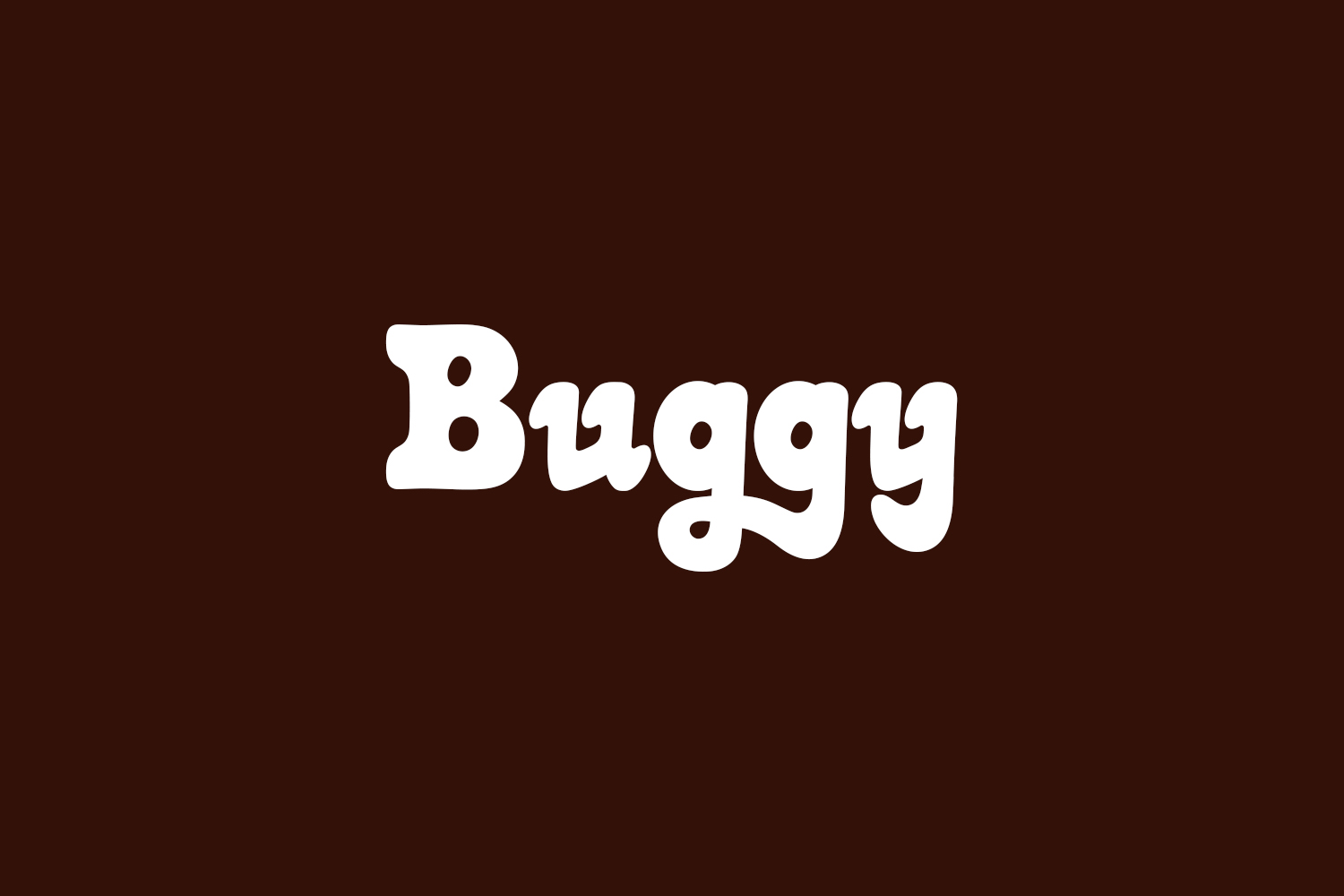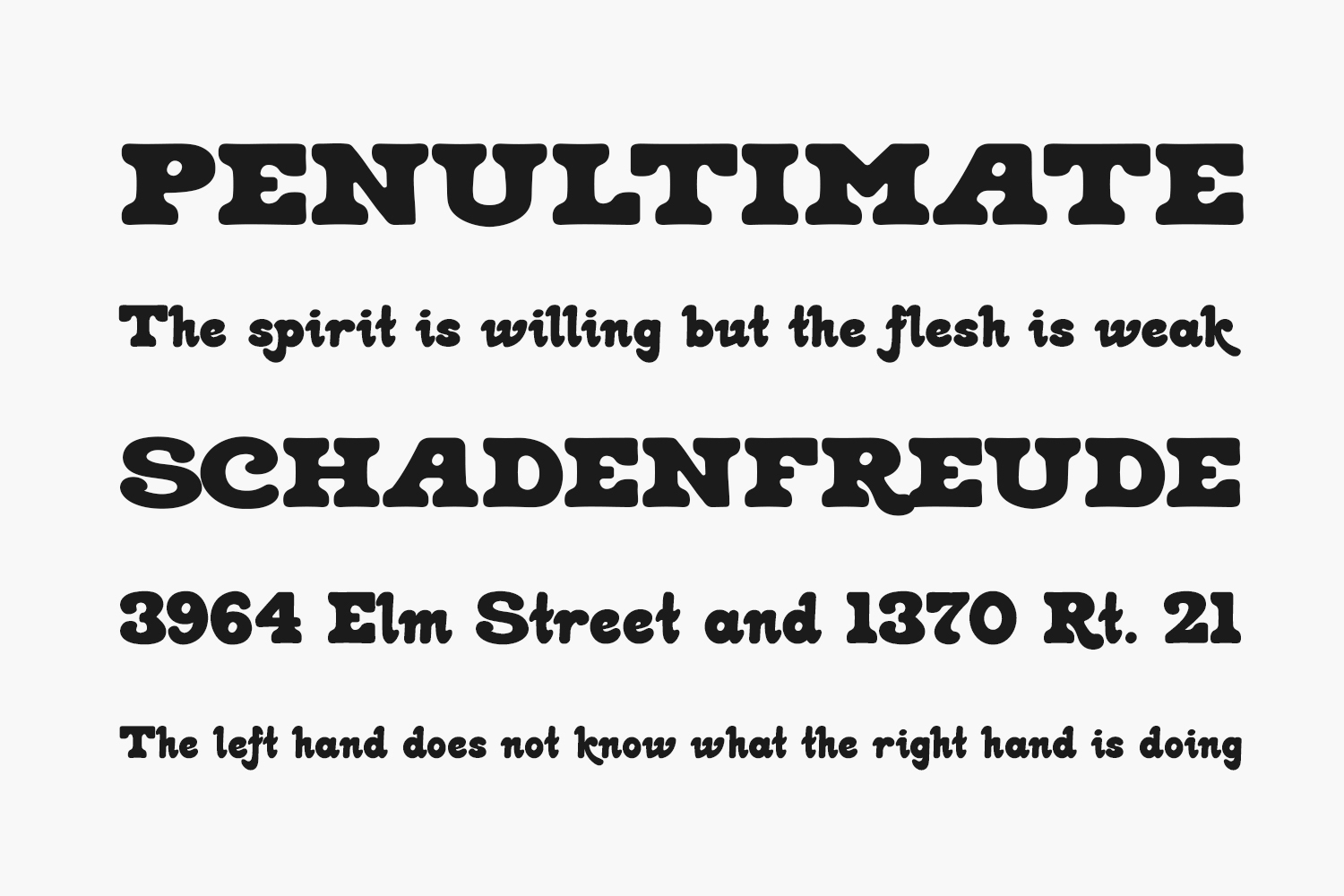
Buggy Free Font is a bold and retro styled display font, featuring the perfect amount of trendiness. Whether you’re using it for crafting, digital designing, presentations, or greeting card making, it’s perfect. Buggy Free Font was designed by Don Marciano and is free for personal use only. Please purchase the full version for commercial use.